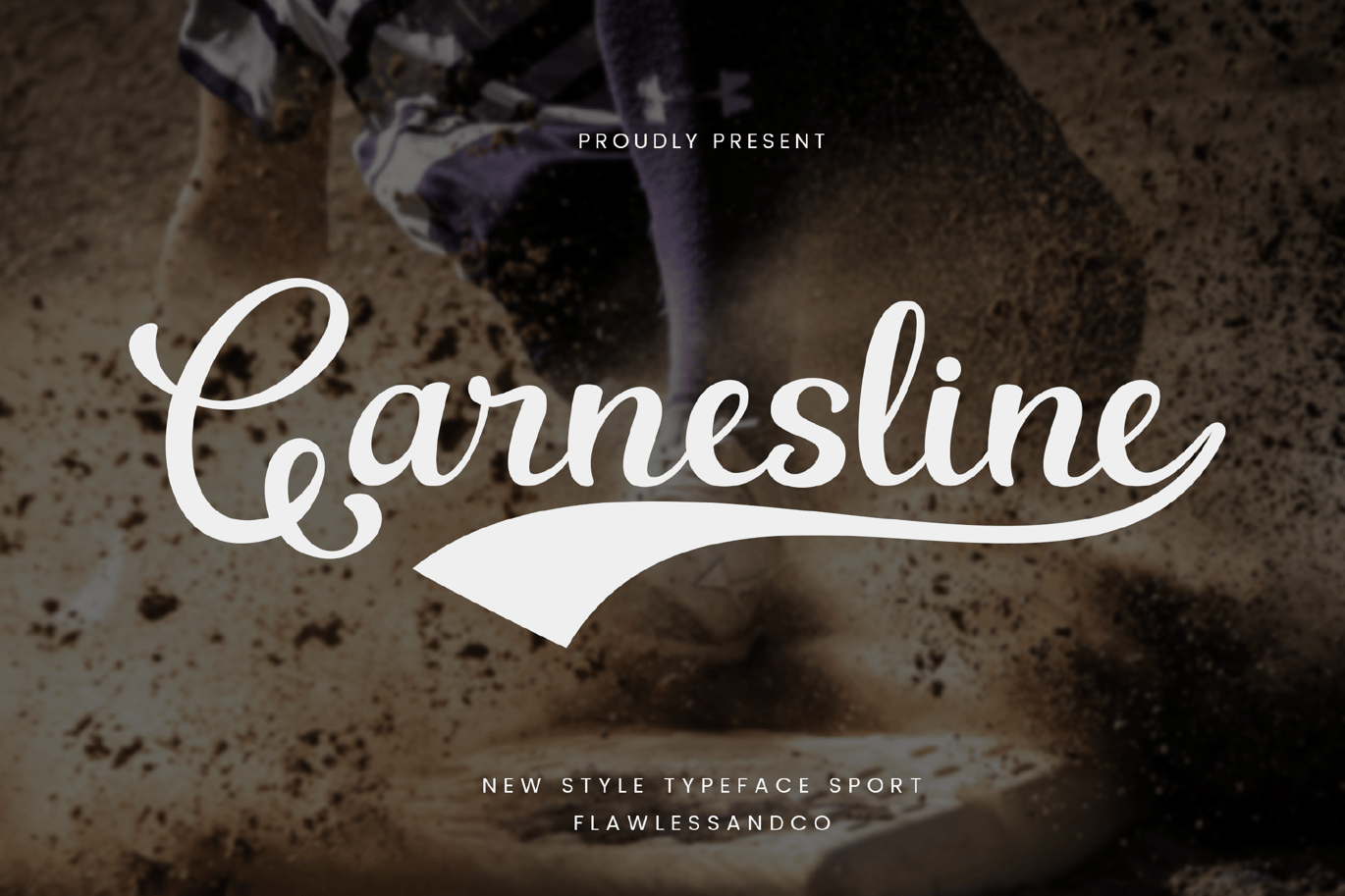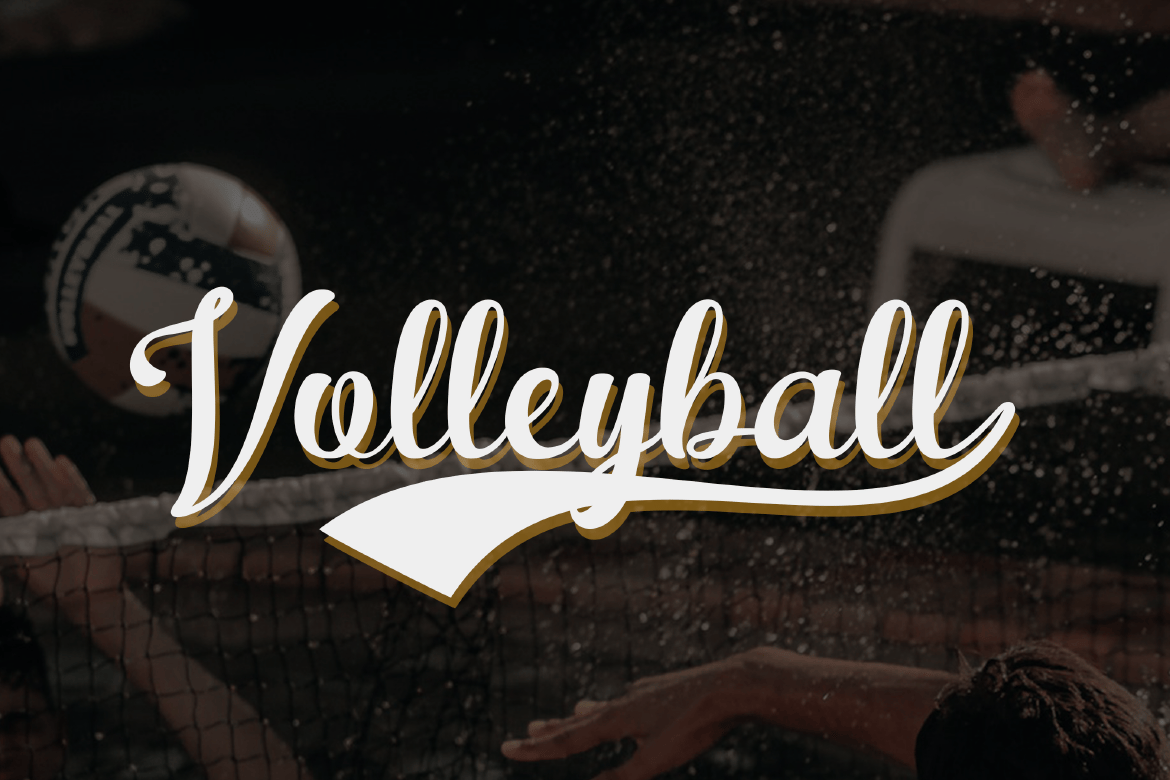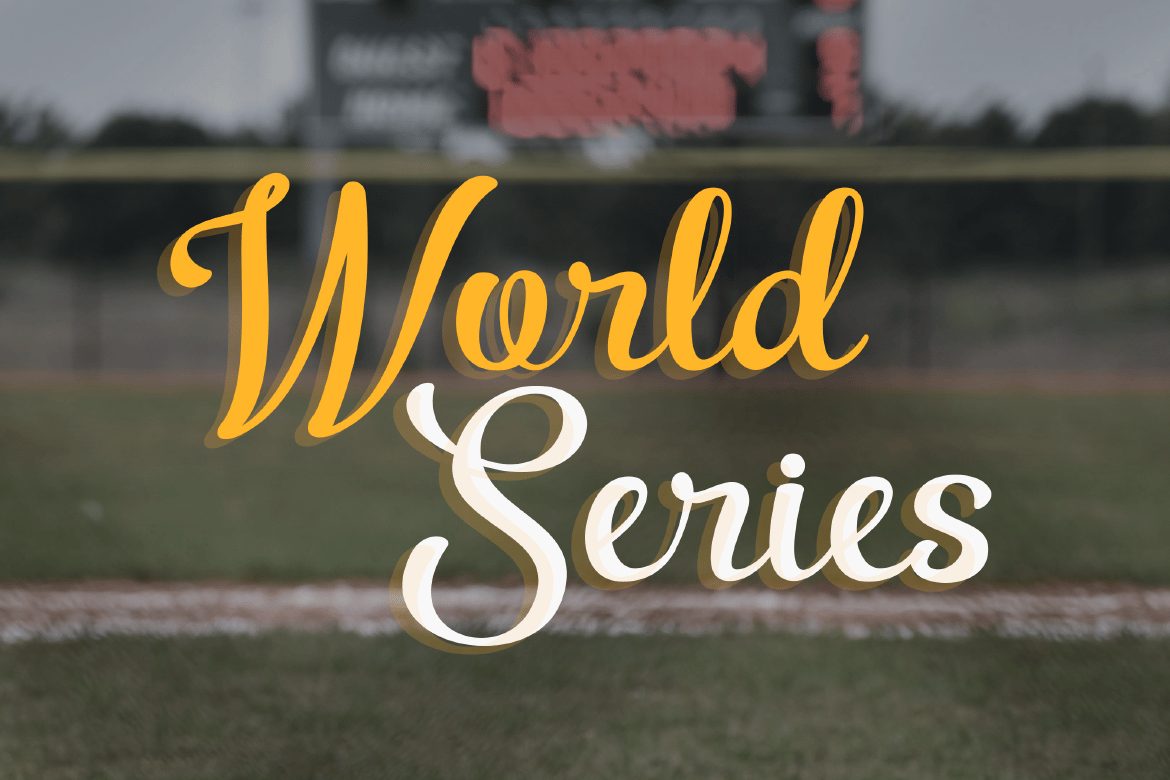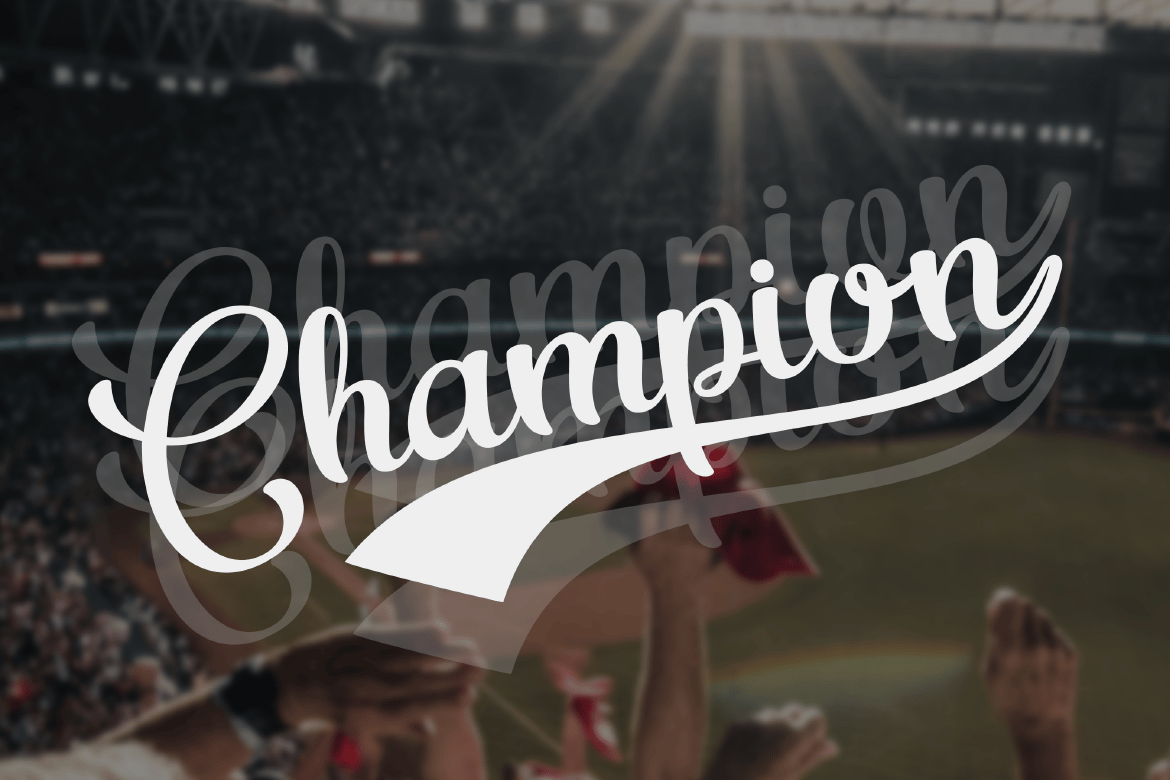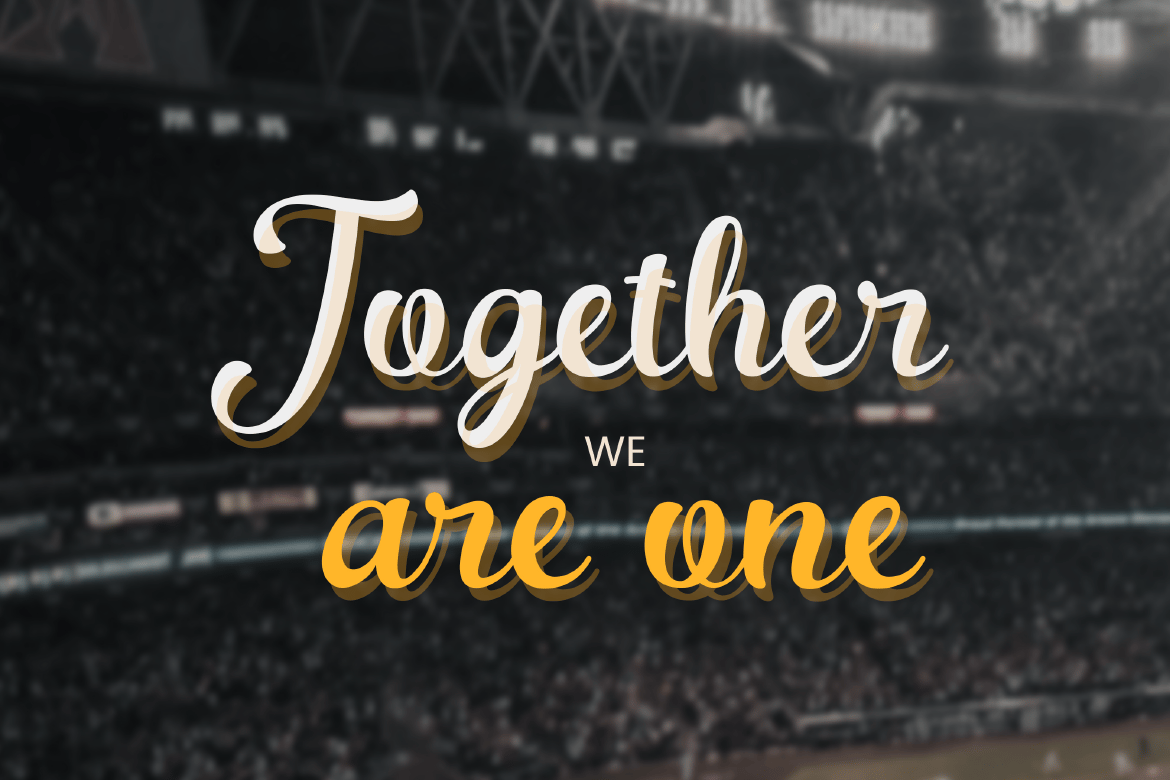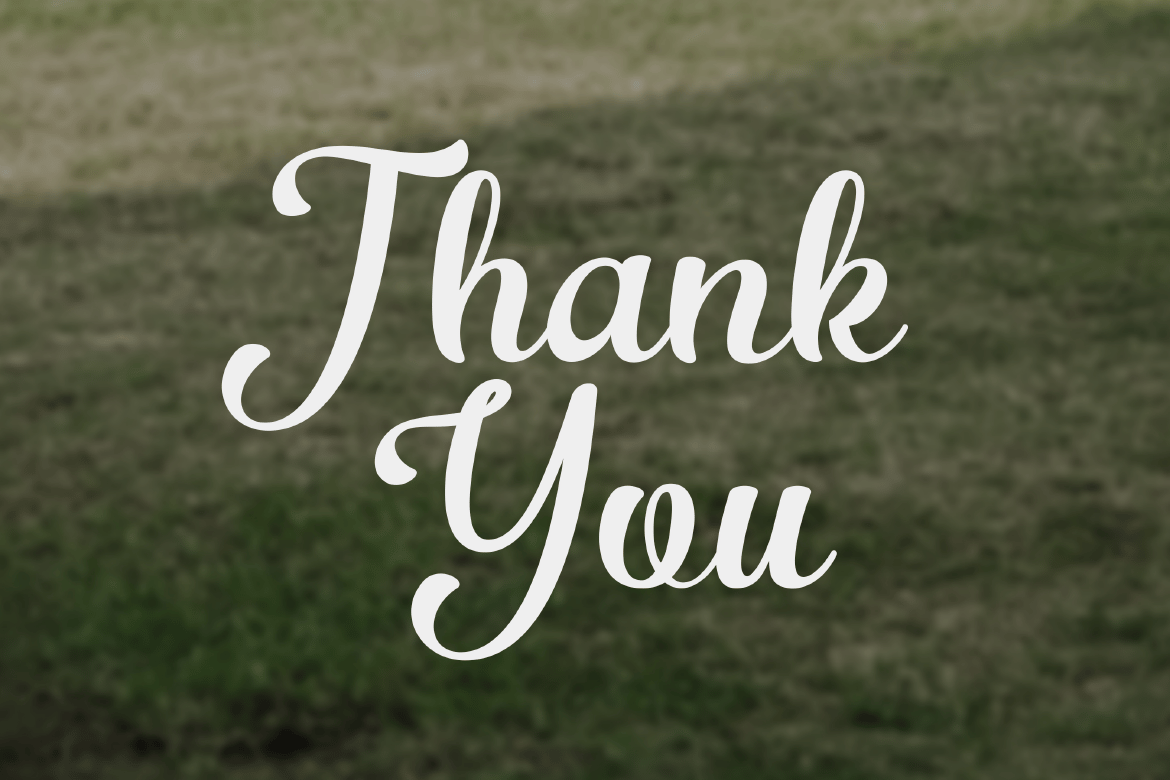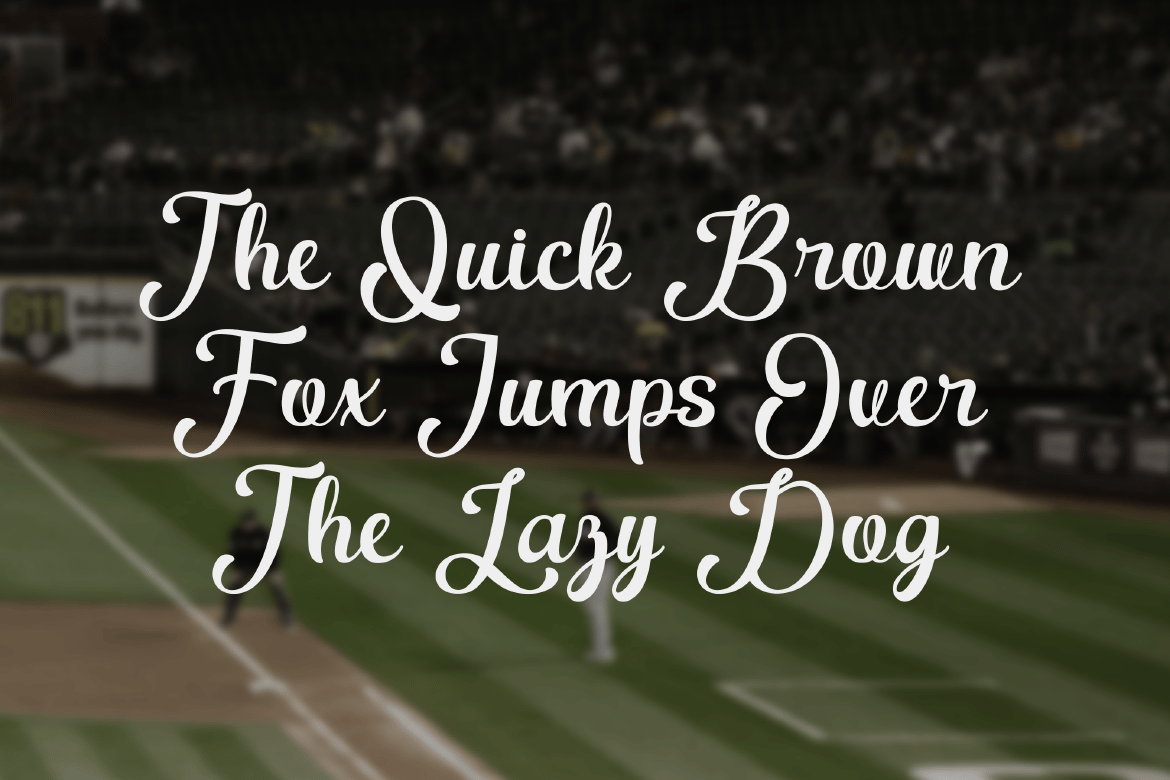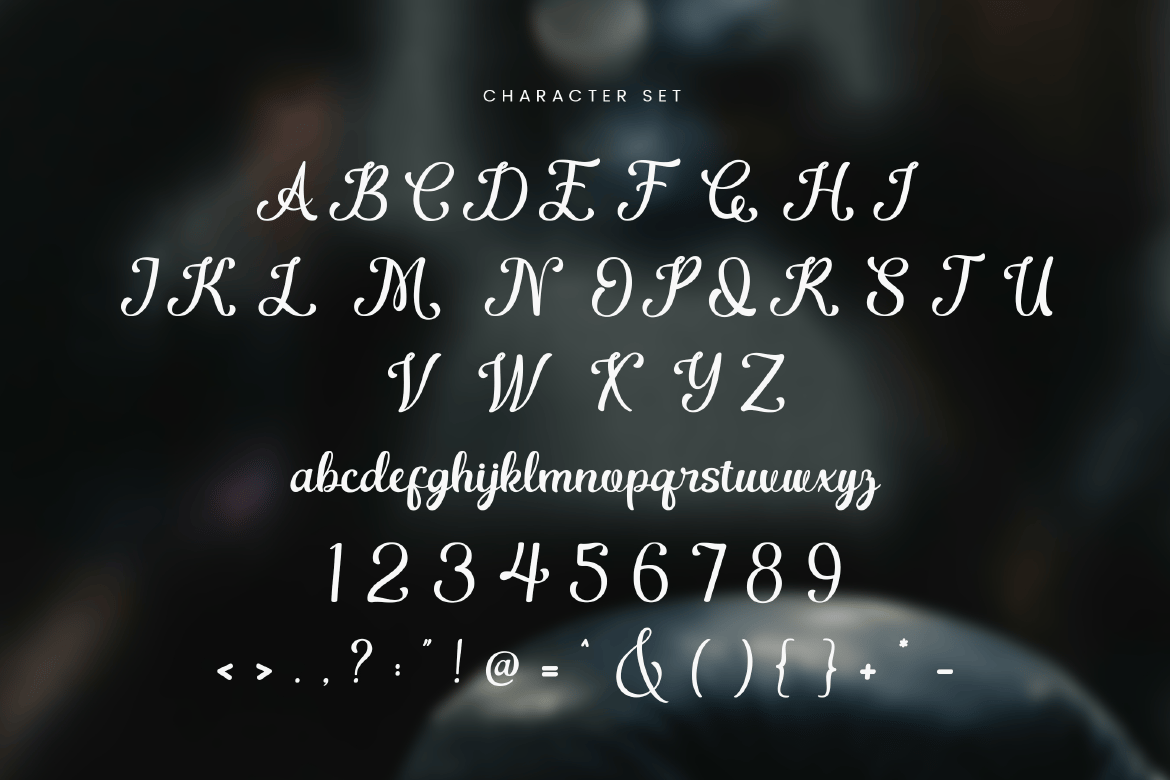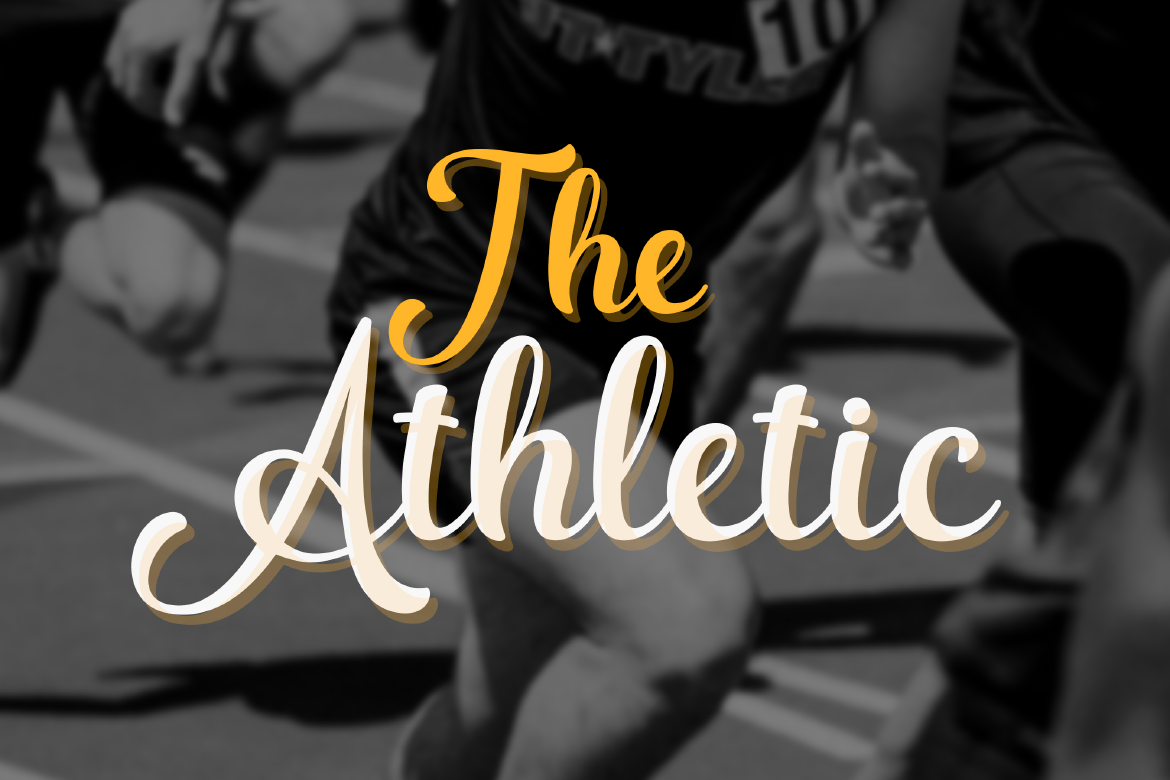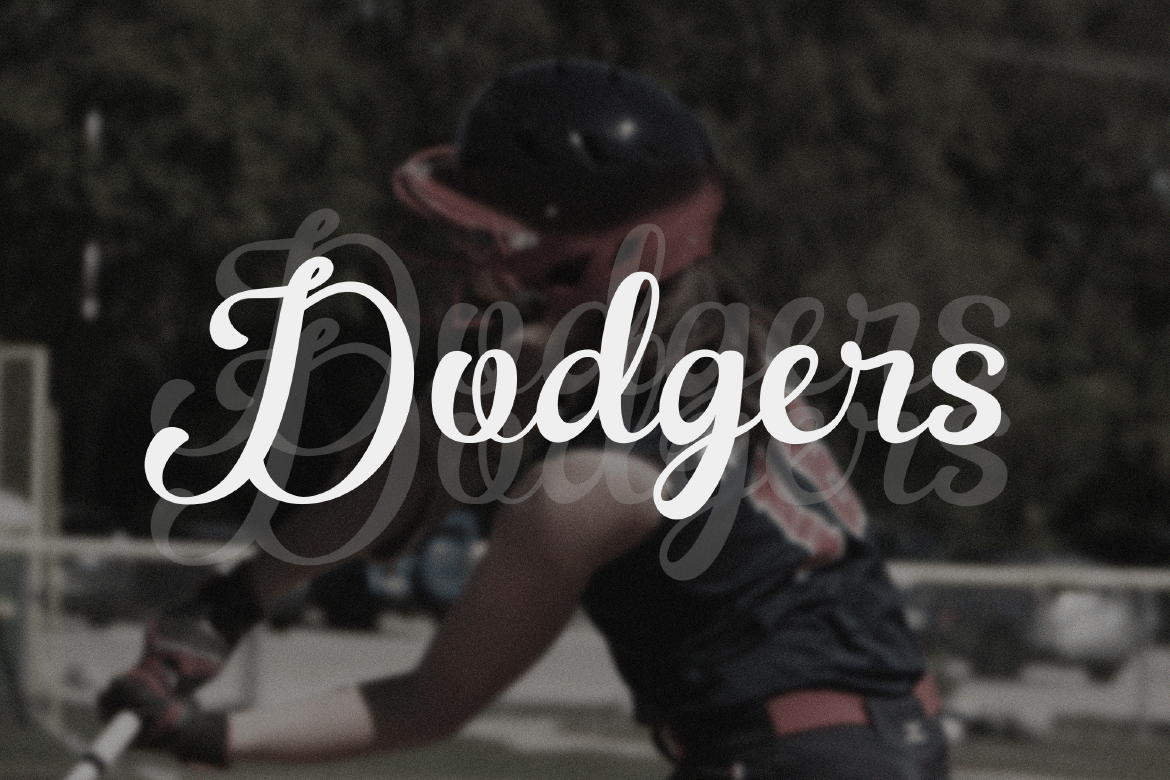
Garnesline Baseball Sport Font
Introducing “Garnesline,” a sports baseball font with a script retro-style that brings the timeless elegance and nostalgic charm of sports to your designs. Perfect for sports branding, team jerseys, promotional materials, and more, Garnesline captures the spirit of pastime with its stylish and fluid letterforms.